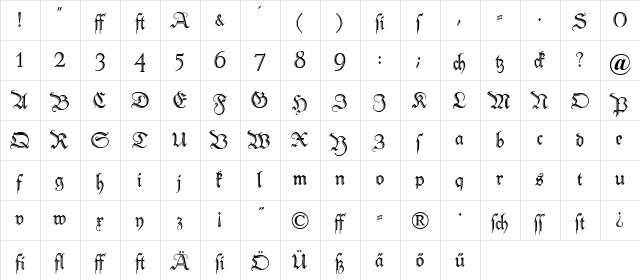
Peter Schlemihl Regular
| Designer | Dieter Steffmann |
| Copyright | Copyright (c) Typographer Mediengestaltung, 2002. All rights reserved. Peter Schlemihl (Lichte Tiemann-Fraktur). geschaffen von Walter Tiemann, 1918-21. Digitalisiert durch Dieter Steffmann, Kreuztal. |
Design Context for Peter Schlemihl Typeface
Peter Schlemihl is a composed and adaptable typeface that performs quietly and consistently across a wide range of design contexts.